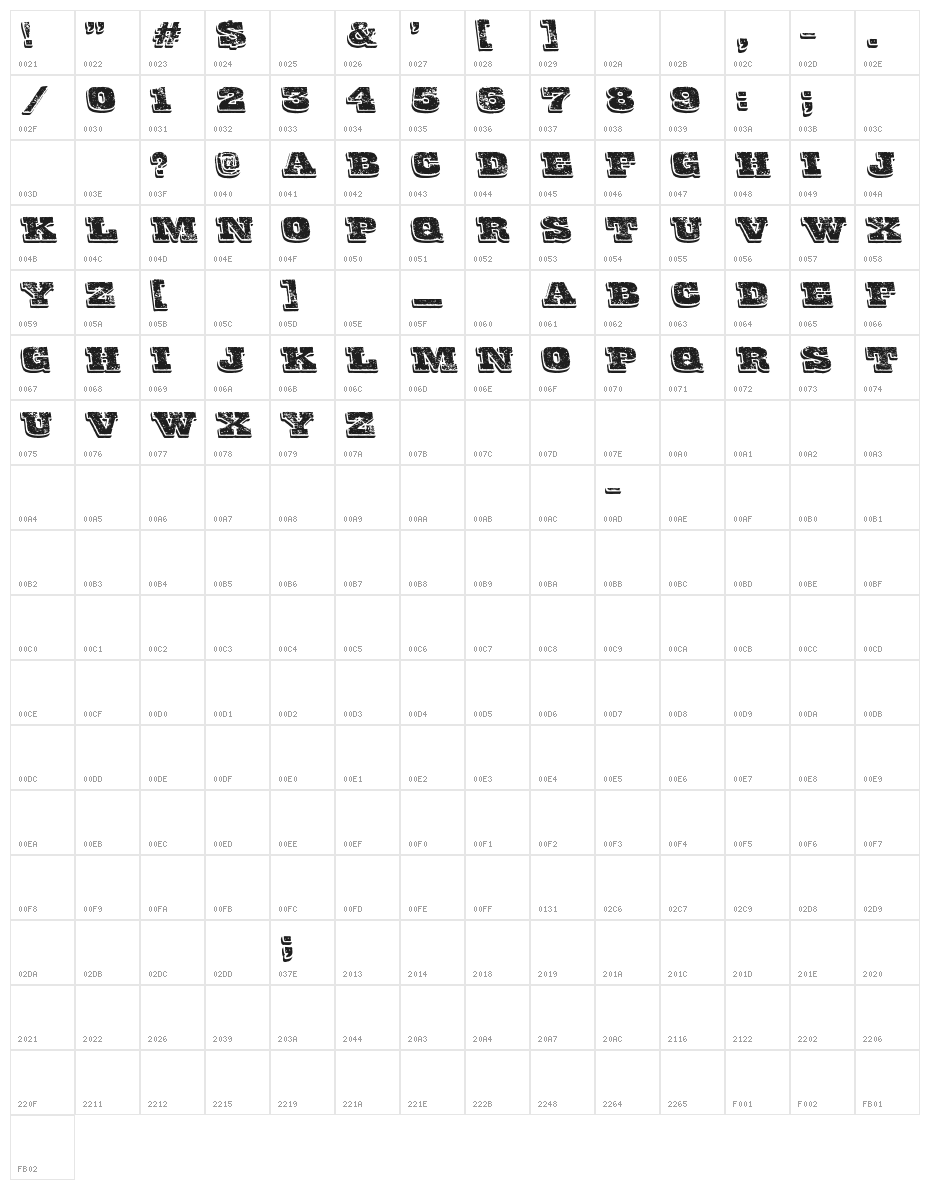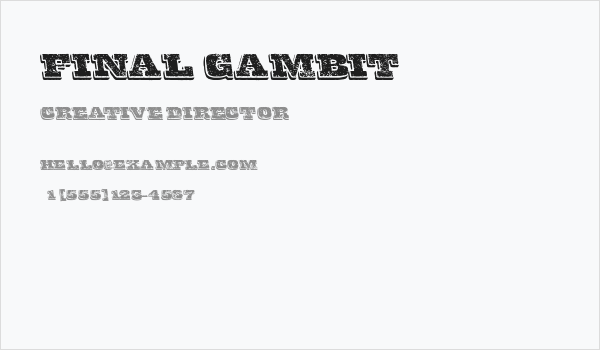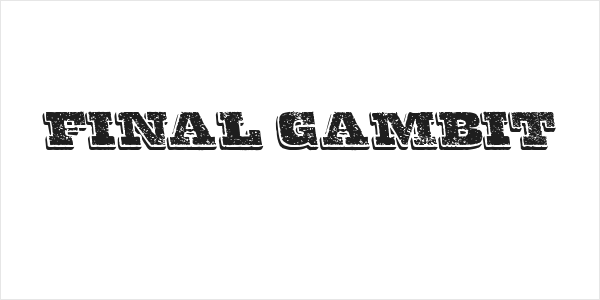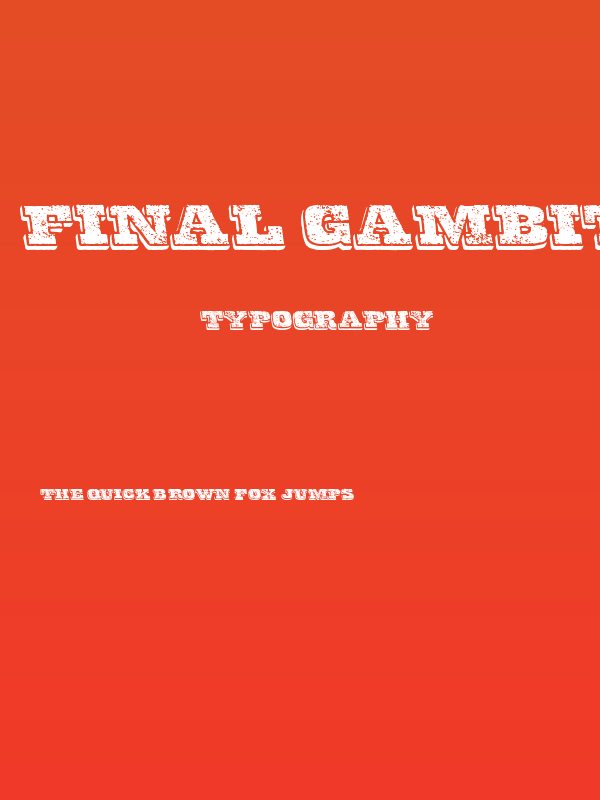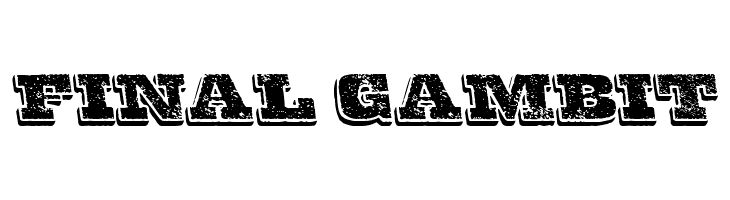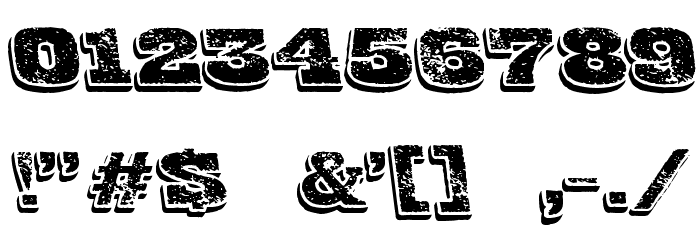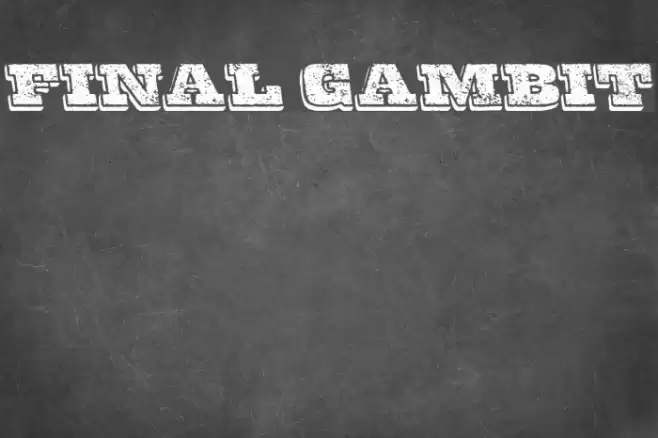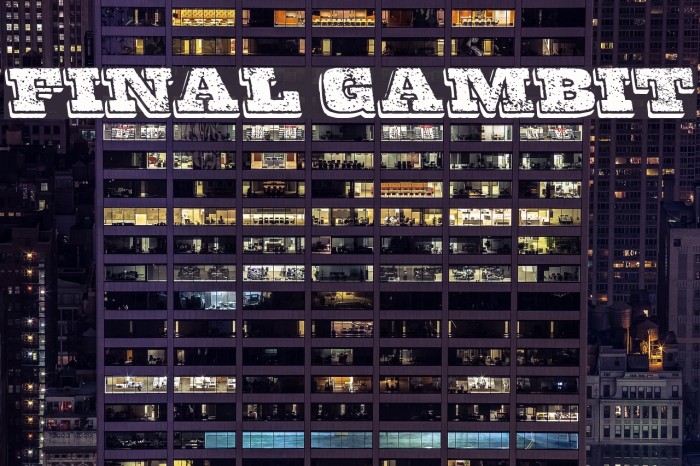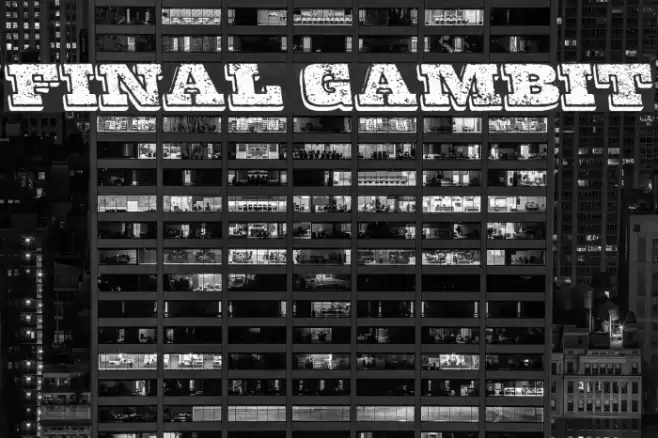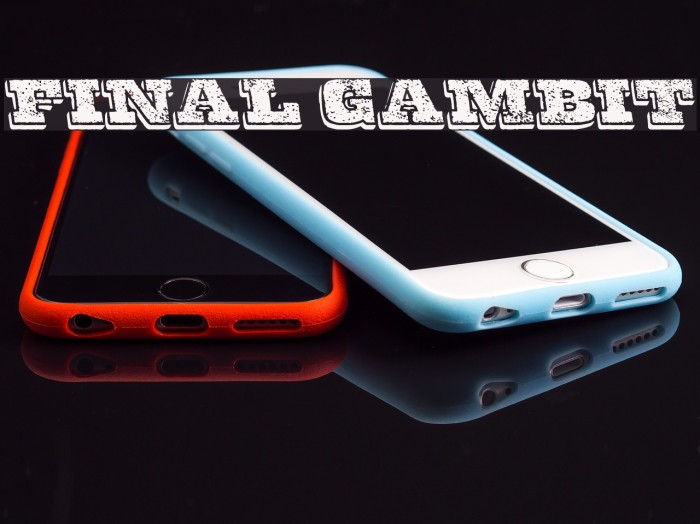
Final Gambit Font
Final Gambit Description
This font features a bold, distressed style with a textured appearance that gives it a rugged, vintage feel. The characters are blocky and substantial, with a consistent weight throughout. The distressed effect is applied uniformly across all characters, adding a sense of age and wear. This style is reminiscent of old printing techniques or weathered signage, making it ideal for projects that require a touch of nostalgia or a gritty aesthetic. The uppercase and lowercase letters maintain a uniform height, contributing to a cohesive look. Numbers and special characters are equally bold and textured, ensuring consistency across all text elements.
| Overall Style | Vintage |
| Proposed Projects | Ideal for vintage-themed posters, logos, branding materials, and any design that requires a rugged, aged look. |